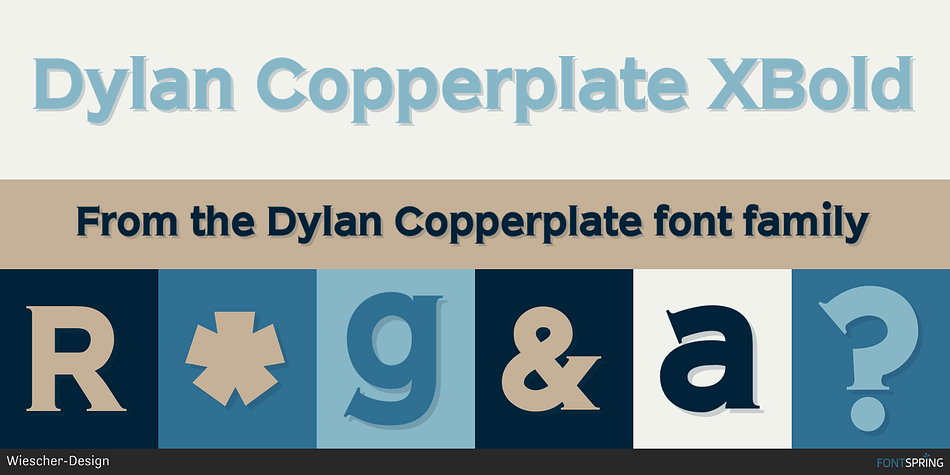
Dylan Copperplate XBold
Dylan Copperplate is a serif font family. This typeface has six styles and was published by Wiescher-Design.
Dylan-Copperplate is my newest addition to the ever growing family.
Dylan-Copperplate is my newest addition to the ever growing family. The small flicks of the burin add an elegant touch to the solid font-design. Very handsome and useful for all kinds of invitations and business-cards as well as for classy advertising.